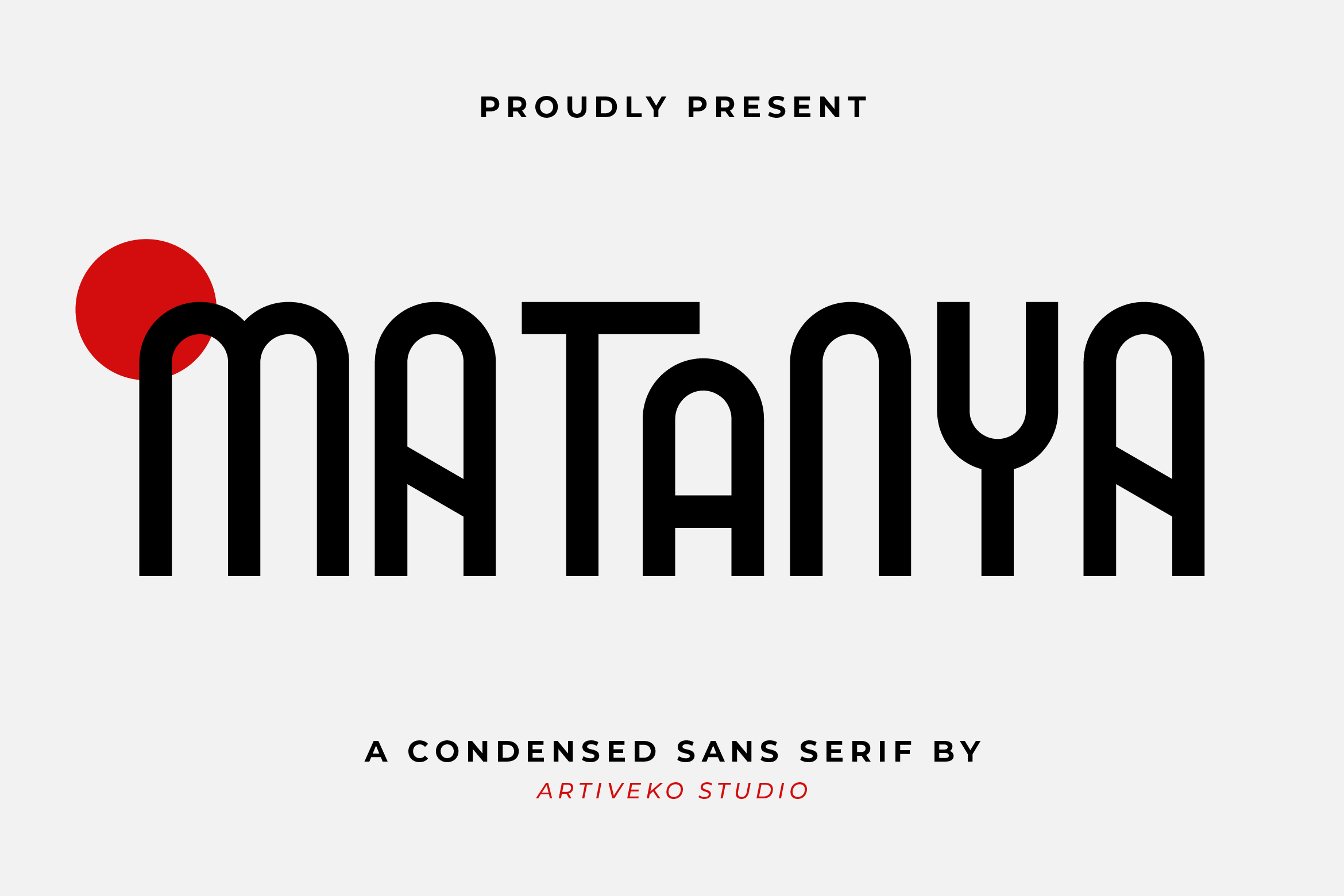
Matanya Condensed Logo Font
Matanya is a distinctive condensed sans serif logo font designed by Iwan Alwan. It features unique shapes with varied uppercase and lowercase characters, offering a versatile and modern aesthetic. This font supports multiple languages and includes ligatures and alternates, making it perfect for creative branding and design projects. Matanya's sleek and stylish design adds a contemporary touch to any text, ensuring your message stands out with elegance and clarity.